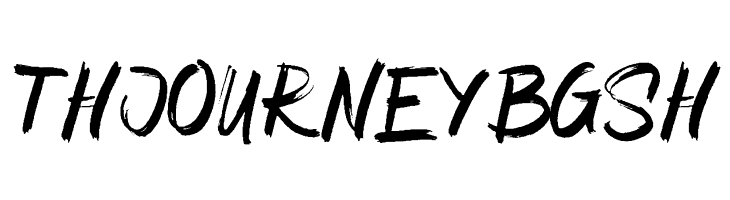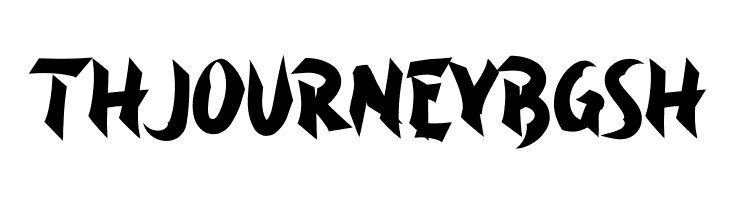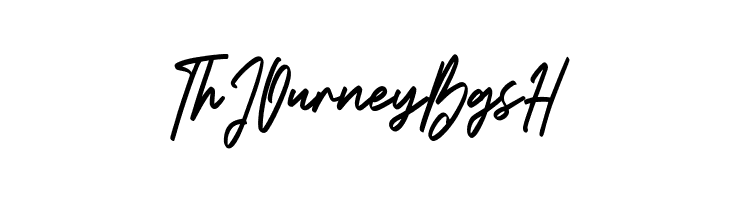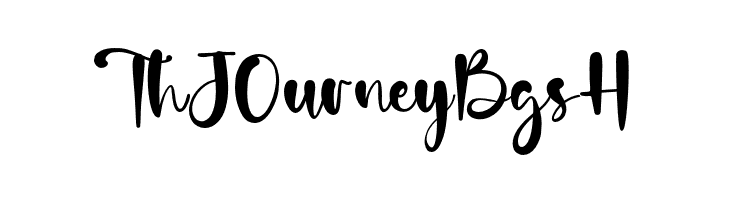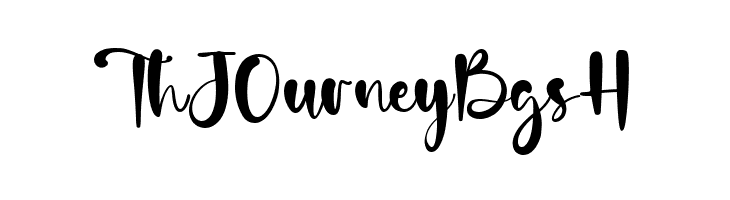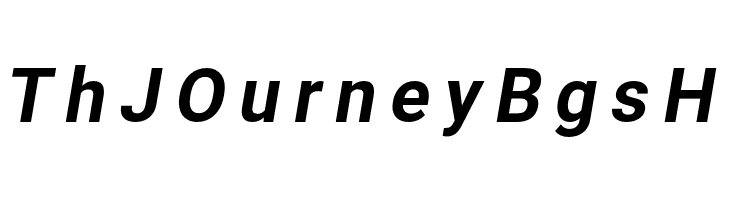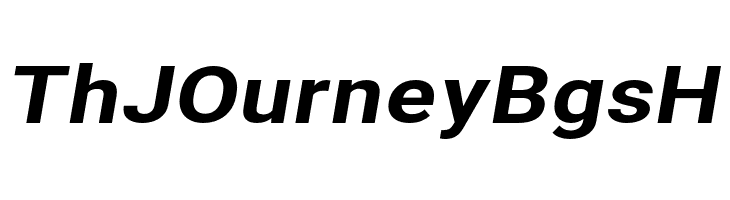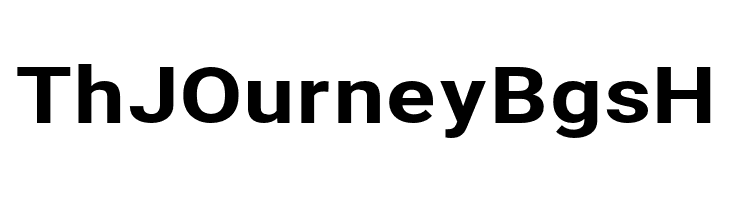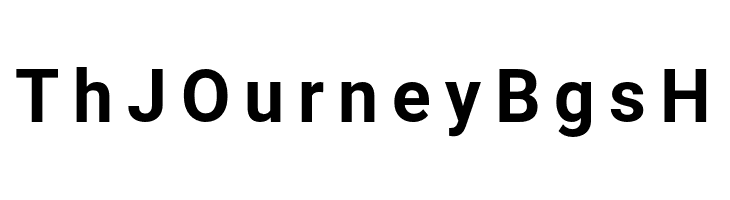
• Asian Ninja
A bold, angular font with high contrast and an edgy, dynamic style.
• Asian Ninja
A bold, angular font with high contrast and a dynamic, edgy style.
• Asiatropic Free Font
A lively and expressive handwritten font with fluid strokes.
• Asifa Carol
A bold, expressive script font with flowing, cursive letterforms and high contrast.
• AsifaCarol
A bold, playful script font with a handwritten, artistic flair.
• Asimone Brush
A bold, brush-style font with expressive, hand-painted strokes.
• Asimov Distant
A modern sans-serif font with a clean, geometric design and uniform stroke widths.
• Asimov Distant Italic
A modern, italic sans-serif font with a sleek and dynamic style.
• Asimov Extra Wide
A bold, wide typeface with a modern and assertive style.
• Asimov Extra Wide Italic
A bold, wide, and italic font with a modern and dynamic style.